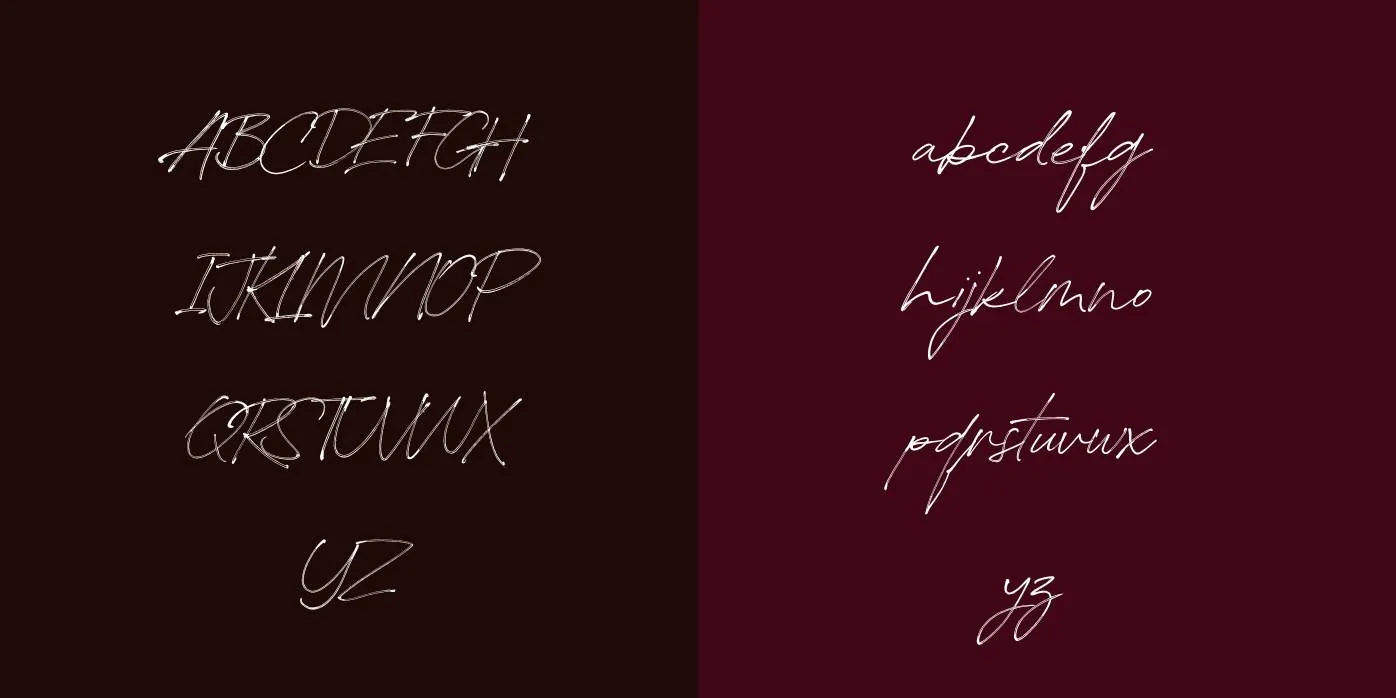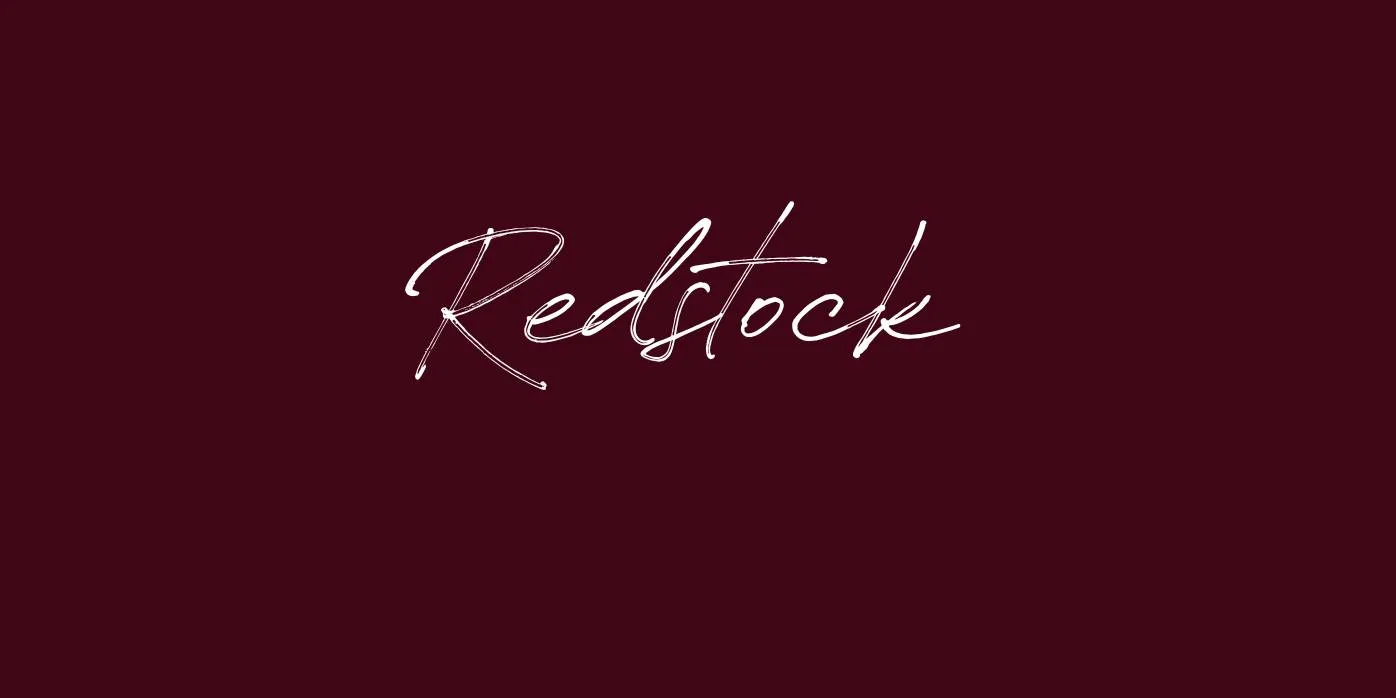
Redstock Font
Redstock Font is a very nice handwritten texure. This amazing font is designed by Konstantine Studios. It has a ballpoint effect in it. It contains 242 characters, 284 glyphs, and 1000 units per Em.
The weight of the font is light and its width is semi-expanded. Embedding rights are allowed for editing only for this font. The writing style look of this font is Italic. Unicode supported 2.0 and BMP only.
This typeface is completely written by hand. You can also use it for pairing with other fonts like hanie font to give a more attractive look to your projects. Usage This stunning font can be used to design so many different projects it has many amazing features like characters, symbols, numbers, small letters, capital letters, special characters, and punctuations. It can be used to make attractive logos and titles for any brand.
For making eye-catching invitations cards and other events invitations you can also use it. To design all types of fancy signatures it was designed under the PSD layers which means you can change its color which can be used in Adobe Photoshop by blending option. For branding and product packing this typeface is also a suitable choice. You can use it for both types of media print and digital.